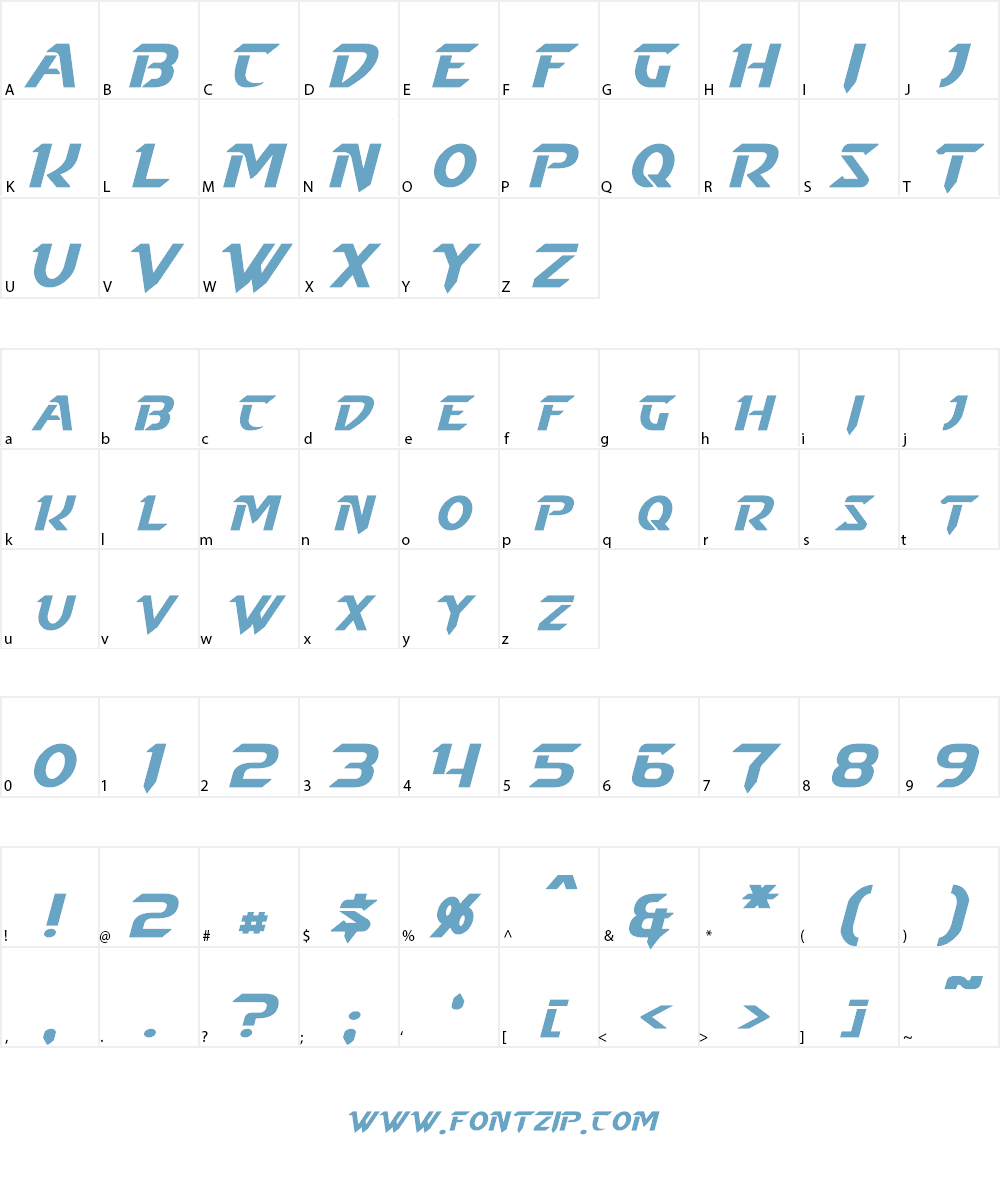
This stylish, decorative typeface is based on the title logo of Blizzard Inc's "Starcraft" computer game franchise. Includes full alphabet, extended punctuation, euro.
- Added OE and Per-Thousand glyphs
- Spacing cleanup
- Added 'italic' form